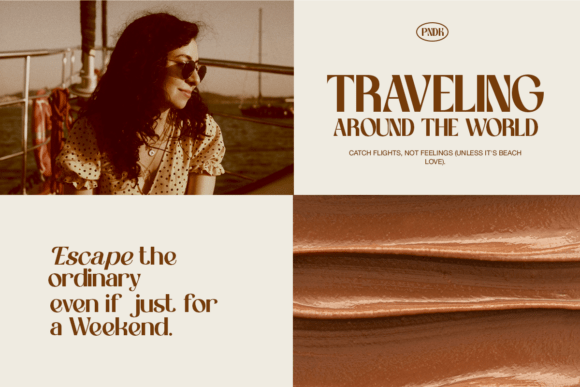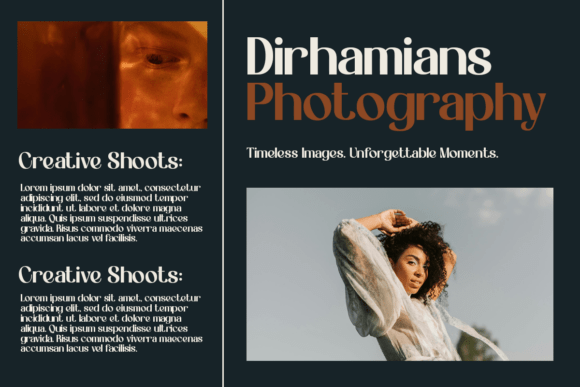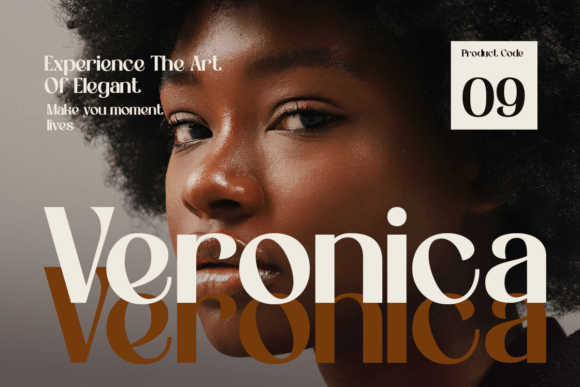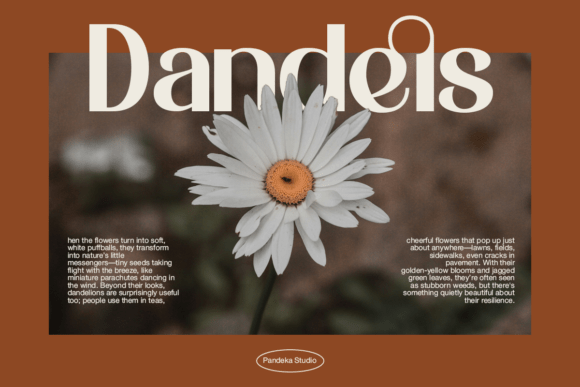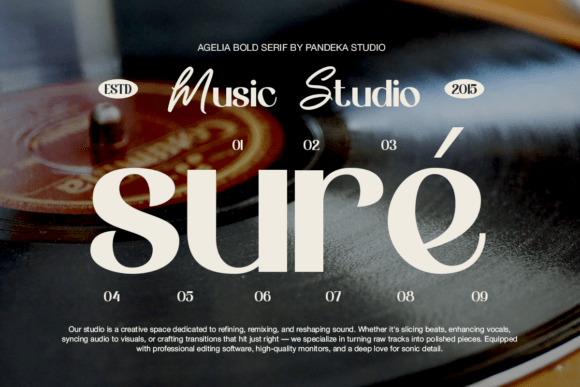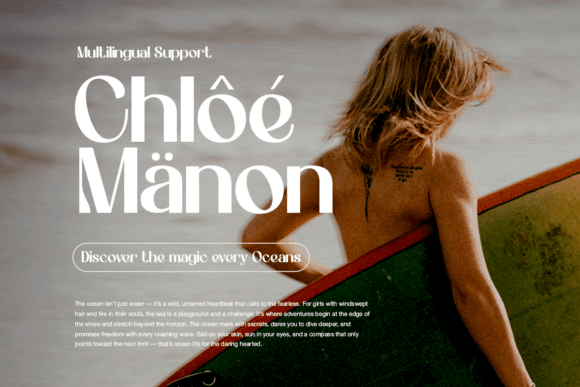
The Agelia Font: Elevate Your Designs with Elegance
I’ll never forget the time I was working on a luxury branding project for a high-end jewelry client. I had spent hours perfecting the logo design, but something felt off. The font I was using just didn’t convey the level of sophistication and elegance the brand required. That’s when I stumbled upon Agelia, an exquisite serif typeface that instantly elevated my design to new heights.
Agelia: A Timeless Serif Font
Agelia is an elegant serif font designed to bring a touch of refinement to any project. With its two polished styles – Regular and Italic – this font seamlessly blends timeless typography with a sophisticated look. Whether you’re working on luxury branding, classic packaging, editorial layouts, wedding invitations, premium book covers, or high-end website headers, Agelia is the perfect choice.
What I Love About Agelia ✨
- ✅ Exceptional legibility: Agelia’s clear and refined lettering makes it easy to read, even in small sizes.
- ✅ Versatility: With two styles to choose from, you can use Agelia for a wide range of design applications.
- ✅ Polished aesthetic: The font’s sophisticated look adds a unique touch to any project.
- ✅ Perfect for luxury branding: Agelia’s elegant design makes it ideal for high-end brands looking to convey sophistication and refinement.
While Agelia is an outstanding font, there are a few minor limitations to consider:
- ⚠️ Limited language support: Agelia primarily supports Latin-based languages, so it may not be the best choice for projects requiring extensive language support.
- ⚠️ Not ideal for body text: Due to its elegant and refined nature, Agelia is better suited for headings and titles rather than lengthy body text.
The Story Behind Agelia
Agelia was designed by a team of typographers who aimed to create a font that would bring a touch of elegance and sophistication to any project. Inspired by classic serif fonts, Agelia combines traditional typography with modern refinement. The result is a font that is both timeless and versatile.
Q: What type of projects is Agelia best suited for?
A: Agelia is perfect for luxury branding, classic packaging, editorial layouts, wedding invitations, premium book covers, and high-end website headers.
Q: Can I use Agelia for body text?
A: While Agelia is an elegant font, it’s better suited for headings and titles rather than lengthy body text.
Q: Does Agelia support OpenType features?
A: Yes, Agelia supports OpenType features, including glyphs and stylistic alternates.
Q: Is Agelia suitable for digital use?
A: Absolutely! Agelia’s clear and refined lettering makes it perfect for digital applications, including website headers and social media graphics.